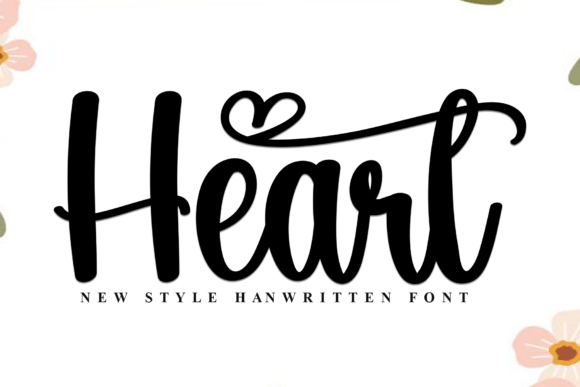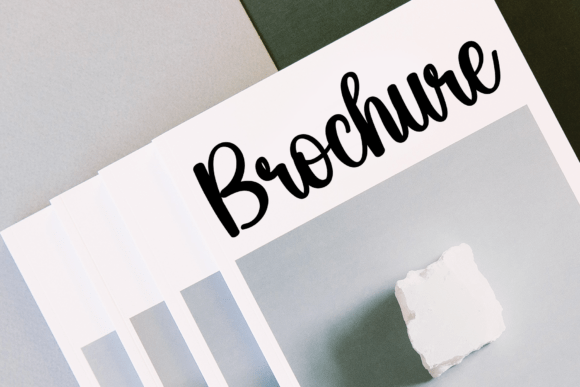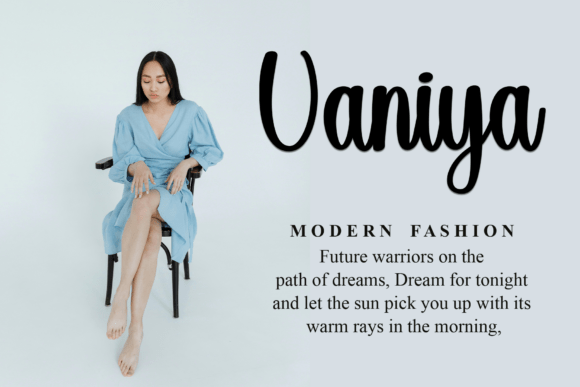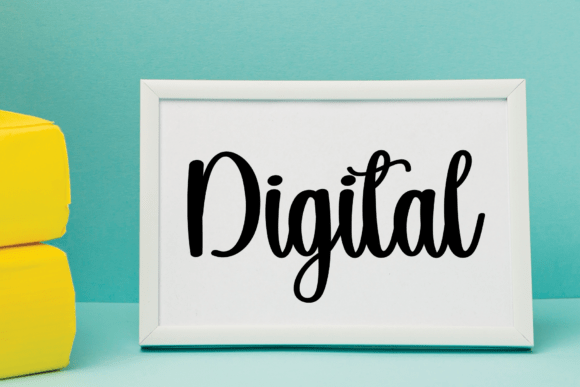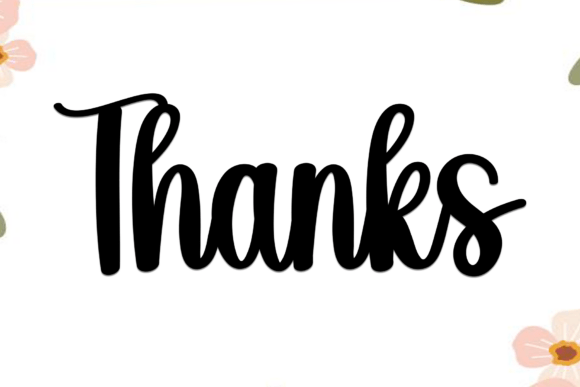
Adding a Touch of Love to Your Designs: Heart Font
As designers, we’ve all been there – staring at a blank canvas, searching for the perfect font to bring our vision to life. And then, like a spark of creativity, it hits us – a beautiful, elegant script font that captures the essence of hand-drawn calligraphy with a modern twist. This is where Heart Font comes in, a stylish script font that exudes sophistication and charm.
With its fluid strokes, graceful curves, and carefully balanced letterforms, Heart Font is perfect for logos, invitations, packaging, and social media graphics. Whether you’re looking to add a touch of personality to your designs or simply want a font that delivers both visual appeal and versatility, Heart Font is the perfect choice. As a designer, you’ll appreciate the value of this font in elevating your work and making it stand out in a crowded design landscape.
Key Features of “Heart Font”
- Font Family: A beautiful, elegant script font with a romantic touch.
- Unique Characteristics: Features a unique, flowing design with subtle flourishes and swashes, perfect for creating eye-catching headlines and titles.
Heart Font Review
First of all, I want to say that I’m in love with the Heart Font’s aesthetic ✨. The elegant, cursive design is perfect for Valentine’s Day-themed projects or any other occasion where you want to convey love and warmth. The font is highly customizable, with a range of options for size, color, and style.
- It works well for titles and headings, adding a touch of sophistication and romance.
- The font is highly legible, even at smaller sizes.
- It’s perfect for creating eye-catching graphics and designs.
However, I do have a few concerns ⚠️. The font may be too ornate for some projects, and the cursive design can make it difficult to read in certain contexts. Additionally, the font may not be suitable for body text, as it can be overwhelming to read large blocks of text in this style.
Overall, I think the Heart Font is a great choice for designers who want to add a touch of romance and elegance to their projects. While it may have some limitations, the font’s customization options and beautiful design make it a valuable addition to any design library.
Getting the Most Out of Heart Font
To get the most out of the Heart Font, try using it in combination with other design elements, such as graphics and images. You can also experiment with different font sizes and styles to create a unique and eye-catching design.
The Heart Font is commonly used in designs related to love, relationships, and romance. It’s also a popular choice for Valentine’s Day and other holiday-themed designs.
Alternatives to Heart Font for Designers
Great Vibes Font is a modern, elegant script font designed by Handmade Heroes. It’s perfect for creating a romantic and whimsical atmosphere in designs. Great Vibes is a more versatile option compared to Heart Font, as it can be used for a wider range of projects, from invitations to branding materials. However, it lacks the bold, dramatic feel of Heart Font.
Carolyna Pro is a luxurious, high-end script font designed by Adrian Amunategui. It’s ideal for creating high-end designs, such as luxury branding, wedding invitations, and fashion materials. Carolyna Pro is more sophisticated and elegant than Heart Font, but it may lack the playful, whimsical feel that Heart Font provides.
Alex Brush Font is a beautiful, handwritten script font designed by Laura Worthington. It’s perfect for creating a personal, emotive atmosphere in designs. Alex Brush is a more delicate option compared to Heart Font, but it can be used for a wide range of projects, from invitations to branding materials. It lacks the bold, dramatic feel of Heart Font, but it’s a great choice for designers who want a more subtle look.
Dancing Script Font is a lively, energetic script font designed by Pablo Impallari. It’s ideal for creating a fun, playful atmosphere in designs. Dancing Script is a more dynamic option compared to Heart Font, but it may lack the elegance and sophistication that Heart Font provides. It’s perfect for designers who want to create a bold, eye-catching look.